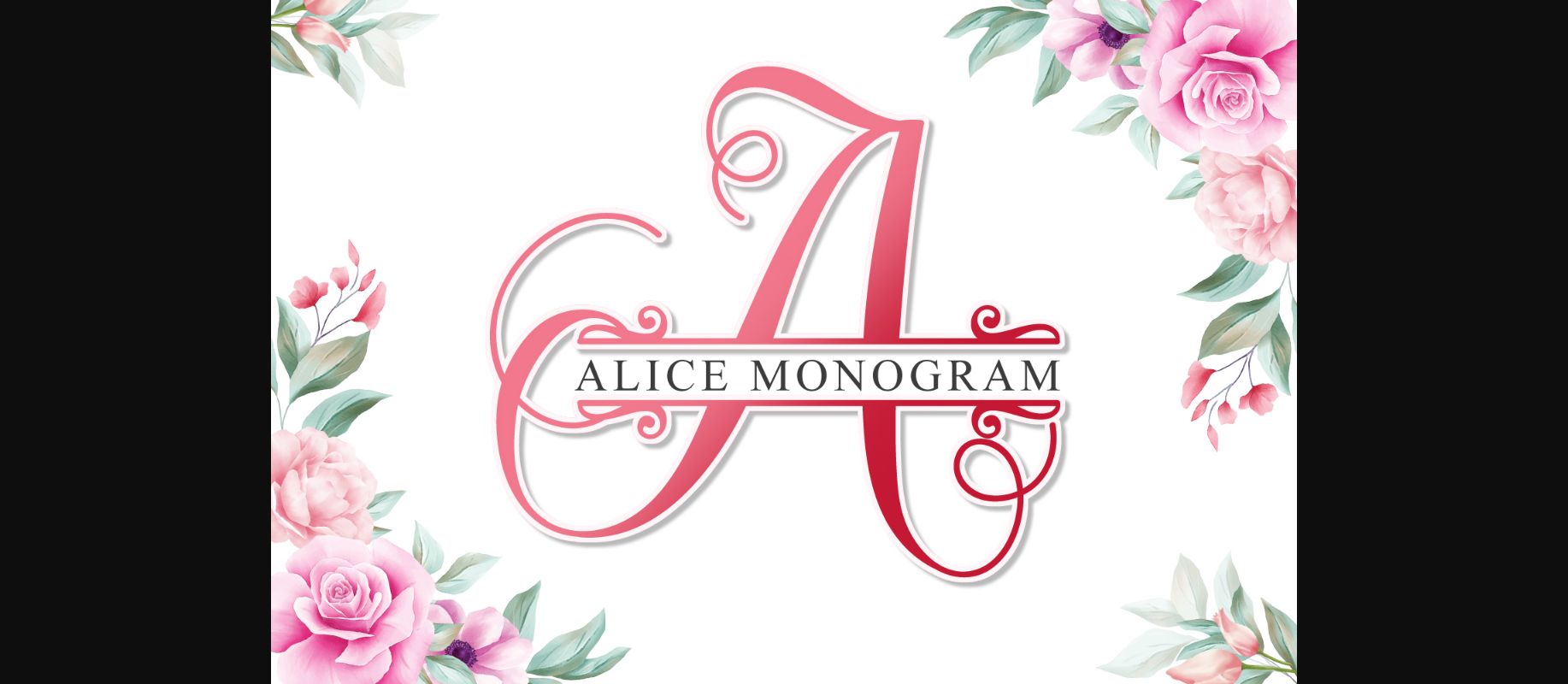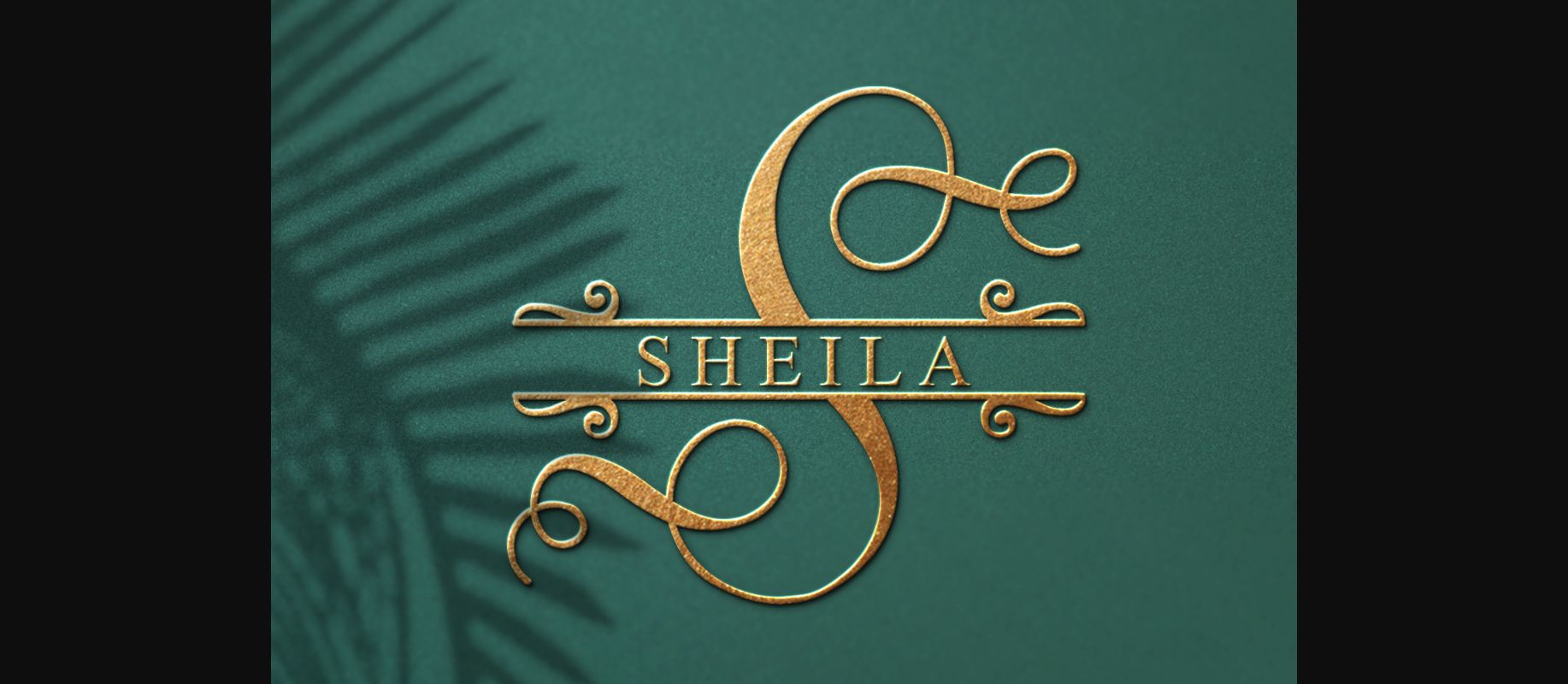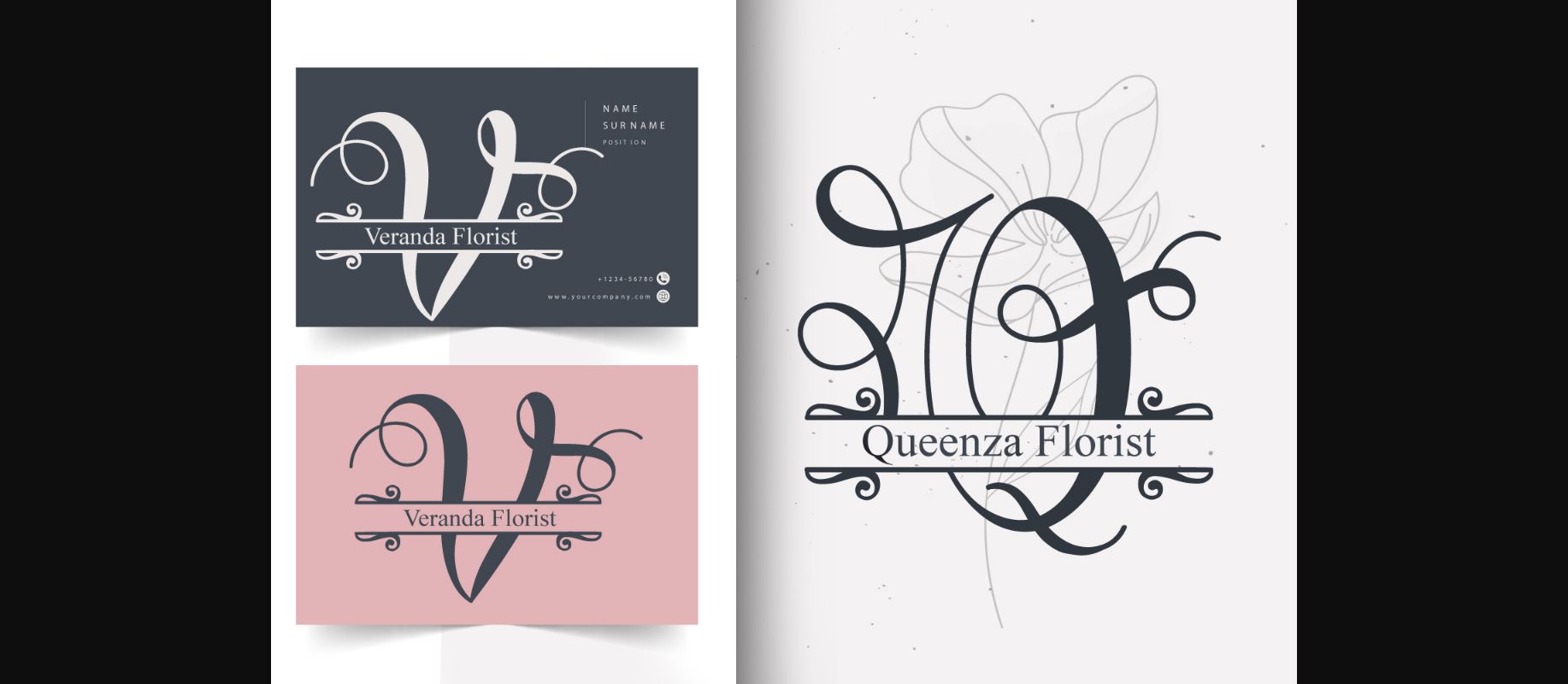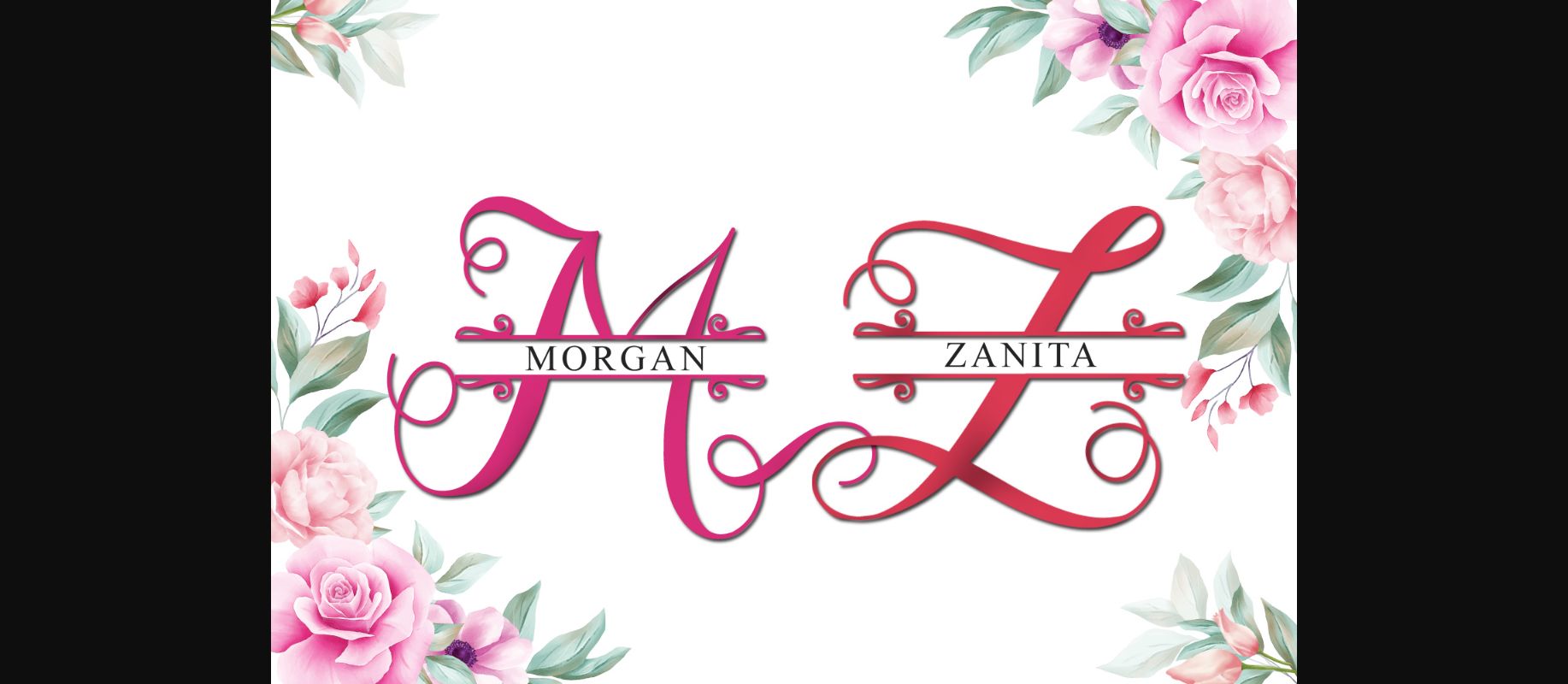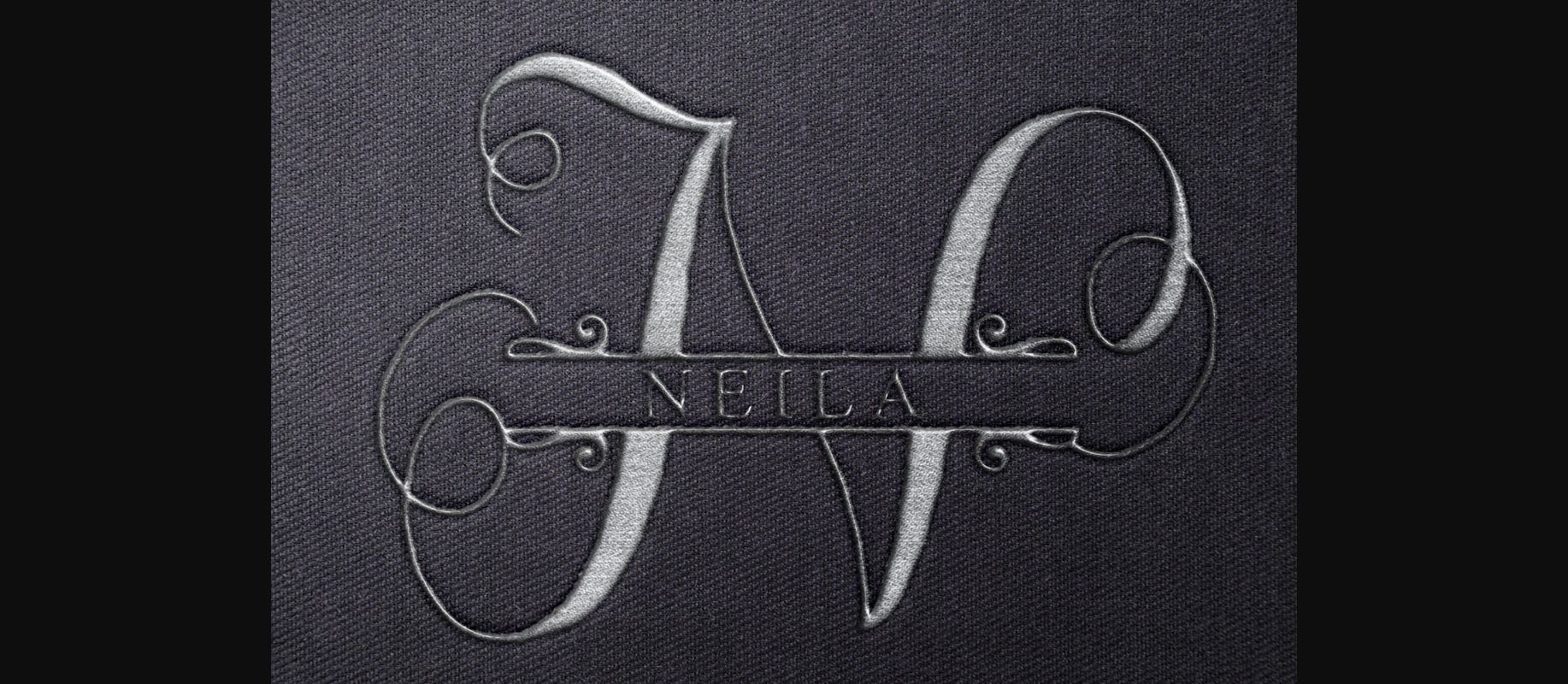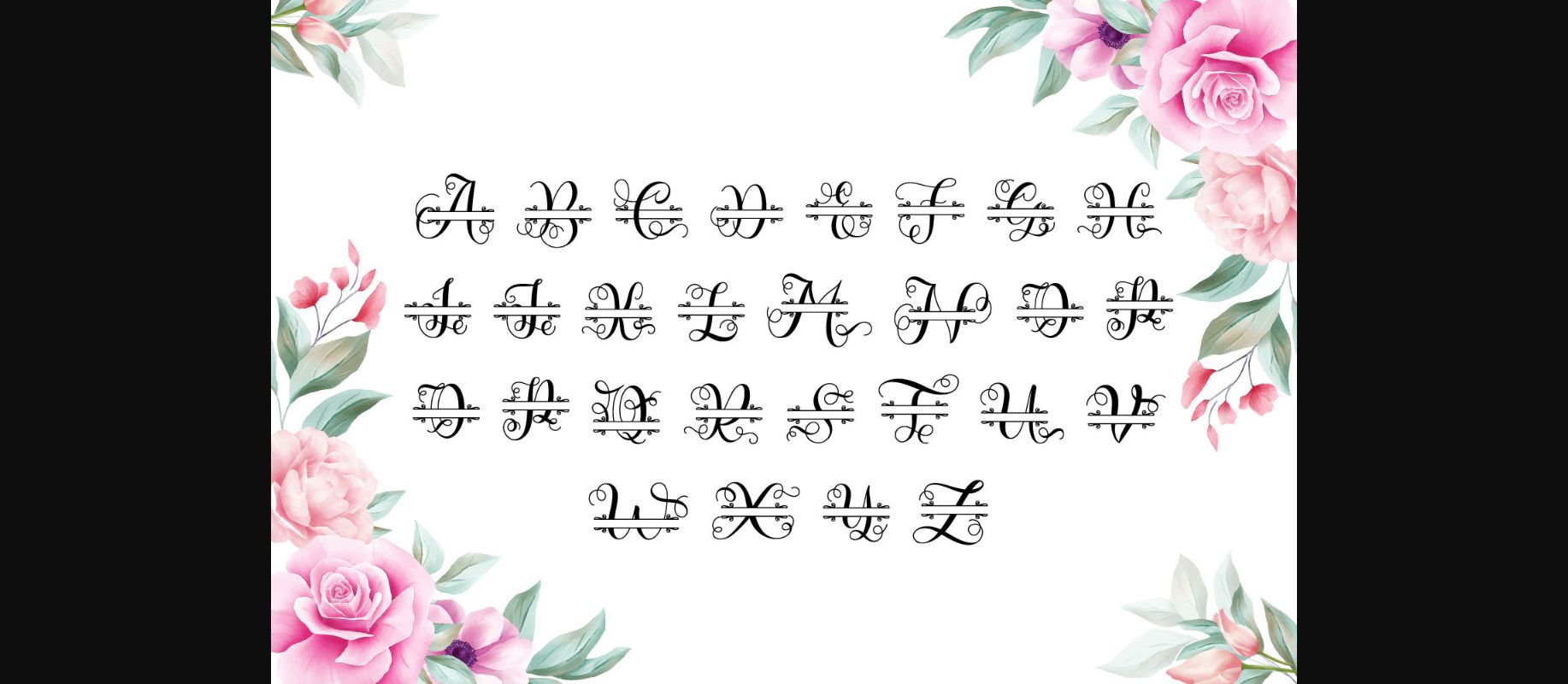
Alice Monogram Font
About Alice Monogram Font
Alice monogram is a sweet decorative font. Fall in love with its authentic feel and use it to create gorgeous wedding invitations, beautiful stationary art, eye-catching social media posts, and cute greeting cards. This font is PUA encoded which means you can access all of the glyphs and swashes with ease!